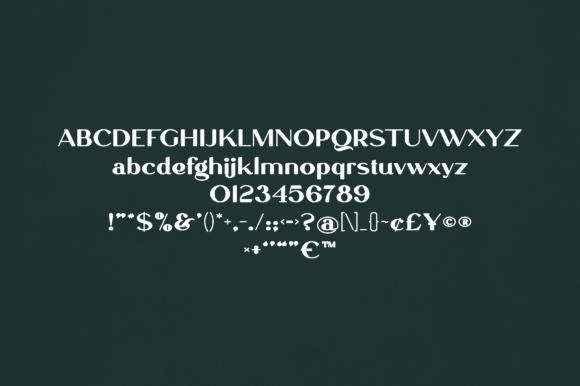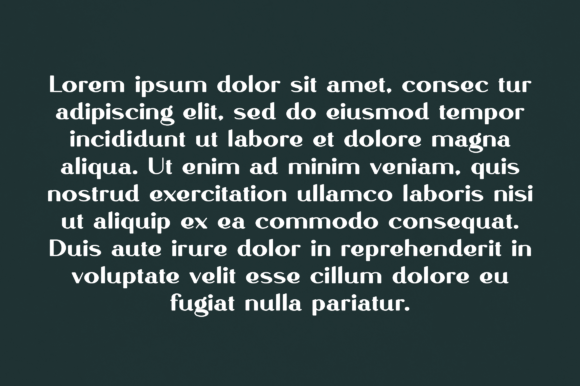
Eris Font: Elevate Your Typography with Elegance and Versatility
Are you tired of using the same old fonts for your design projects? Look no further than Eris Font, a stunning and versatile typeface that will add a touch of sophistication to any design. Whether you’re working on a logo, branding, headline, or plain text, Eris Font is the perfect choice for designers and crafters looking to make their typography truly unique.
The Perfect Blend of Elegance and Versatility
Eris Font is an elegant and versatile font that is designed to enchant every aspect of your design. Its sophisticated lines and curves make it perfect for a wide range of applications, from branding projects and home-ware designs to product packaging and magazine headers. With Eris Font, you can add a touch of luxury to any design, making it stand out from the crowd.
One of the best things about Eris Font is its incredible versatility. Whether you’re designing a logo, creating a brand identity, or simply looking for a stylish text overlay for a background image, Eris Font is the perfect choice. Its clean lines and elegant curves make it easy to read and visually appealing, ensuring that your design will look professional and polished.
Eris Font is a must-have for designers and crafters looking to elevate their typography. Its unique and elegant design makes it perfect for a wide range of projects, including:
- Branding projects: Create a lasting impression with Eris Font, perfect for logos, business cards, and letterheads.
- Home-ware designs: Add a touch of sophistication to your home-ware designs, from kitchen utensils to decorative items.
- Product packaging: Make your product stand out with Eris Font, perfect for labels, packaging, and marketing materials.
- Magazine headers: Create stunning magazine headers with Eris Font, perfect for fashion, lifestyle, and luxury publications.
Why Choose Eris Font?
So why choose Eris Font over other fonts on the market? Here are just a few reasons why Eris Font stands out:
- Unique and elegant design: Eris Font is a one-of-a-kind font that will add a touch of sophistication to any design.
- Versatile: Perfect for a wide range of applications, from branding projects to product packaging.
- Easy to read: Eris Font is clean and easy to read, making it perfect for body text and headlines.
- High-quality: Eris Font is a high-quality font that is designed to look professional and polished.
Tips for Using Eris Font
Here are a few tips for getting the most out of Eris Font:
- Use it sparingly: Eris Font is a statement font, so use it sparingly to make a lasting impression.
- Experiment with different sizes: Eris Font looks great in a variety of sizes, from large headlines to small body text.
- Pair it with other fonts: Eris Font pairs well with a range of other fonts, so don’t be afraid to experiment with different combinations.
In conclusion, Eris Font is a stunning and versatile typeface that is perfect for designers and crafters looking to elevate their typography. Its unique and elegant design makes it perfect for a wide range of applications, from branding projects to product packaging. With its clean lines, elegant curves, and high-quality design, Eris Font is a must-have for anyone looking to add a touch of sophistication to their design.